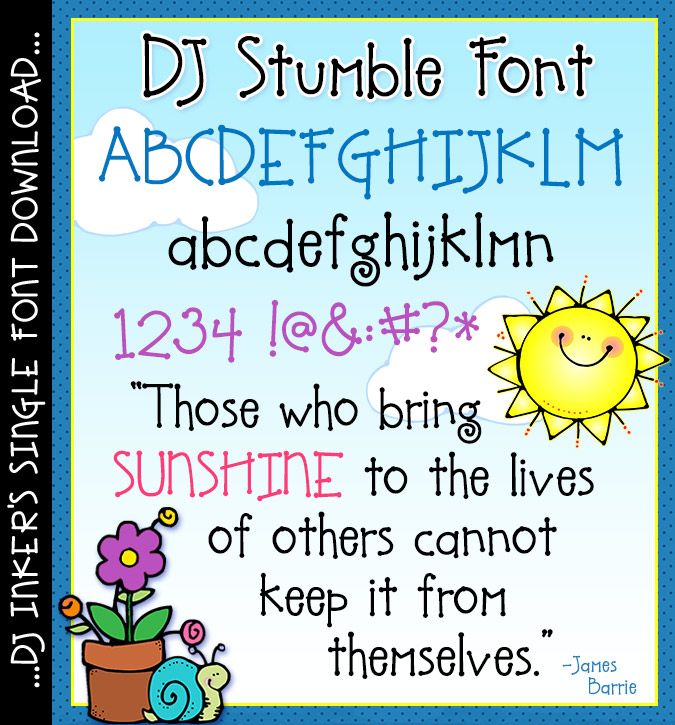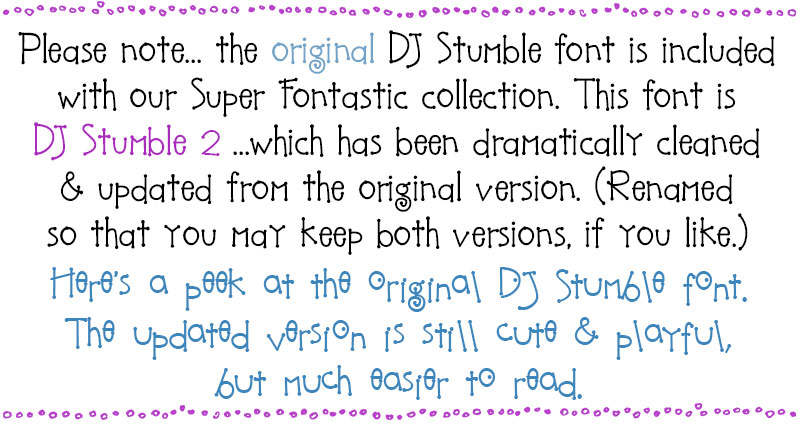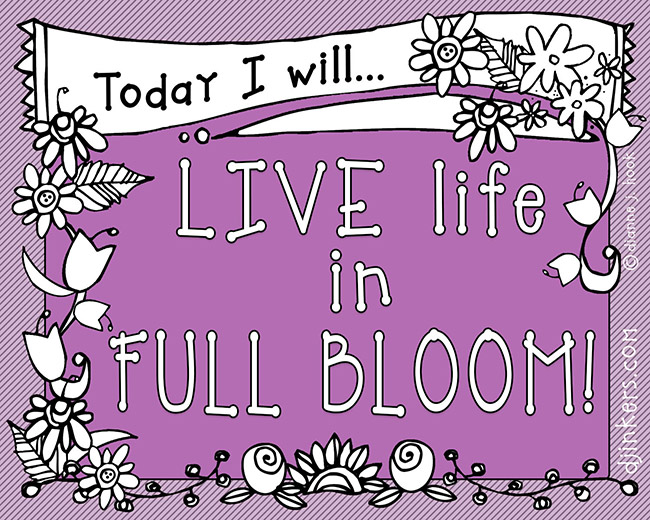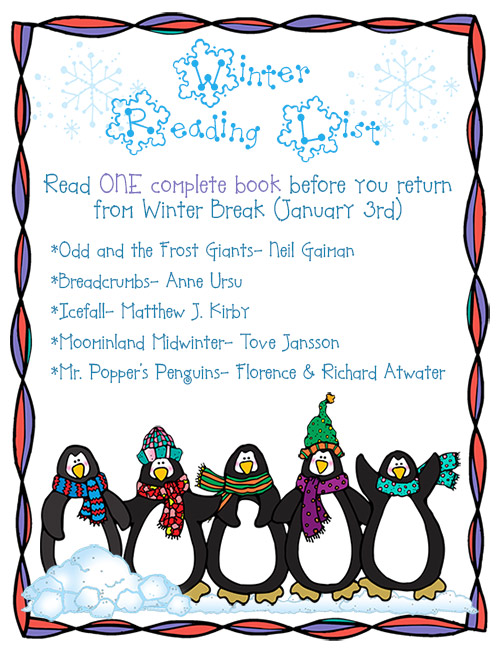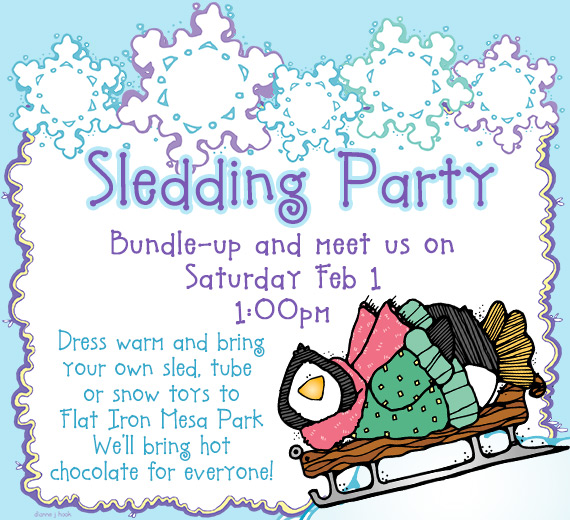
If you love dot lettering... then you've 'stumbled' upon just the right font. These light & playful letters are playful & cute, but still easy to read. Use 'DJ Stumble' to type up a smile on any project for home, school, kids and crafty creations.